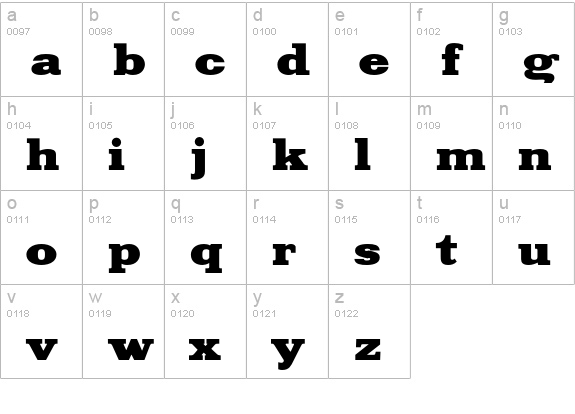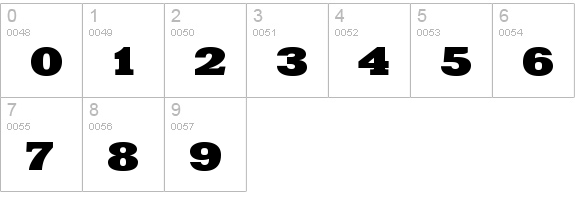
PT XeniaExtended Bold Cyrillic Font Details
PT XeniaExtended Bold Cyrillic is a strong, high-contrast variant in the PT typeface family \xE2\x80\x94 well suited to headlines, attention-grabbing titles, and strong calls-to-action.
PT XeniaExtended Bold Cyrillic font is a visually striking typeface that exudes a sense of modernity and sophistication. Its bold and assertive letterforms make a powerful statement, perfect for headlines, branding, and editorial design projects. The Cyrillic characters are elegantly crafted, ensuring a seamless integration with the Latin alphabet for a cohesive and harmonious overall look. What sets PT XeniaExtended Bold Cyrillic font apart is not only its design but also its accessibility - it is available for free download at FontsMarket.com. This means that designers and creatives can easily incorporate this versatile typeface into their projects without any financial barriers. Whether you're working on a print publication, website design, or any other creative endeavor, PT XeniaExtended Bold Cyrillic font is a valuable asset that can elevate your work to new heights.